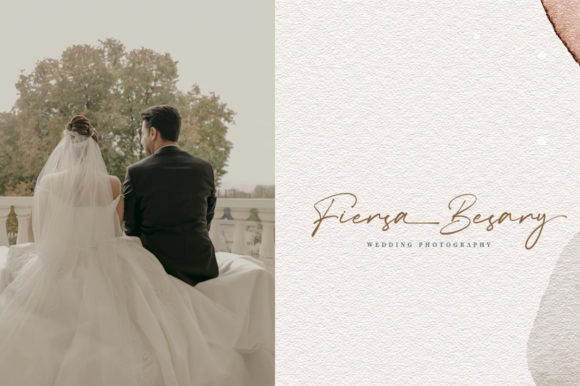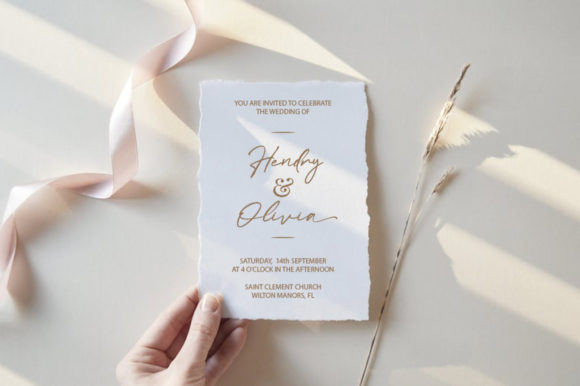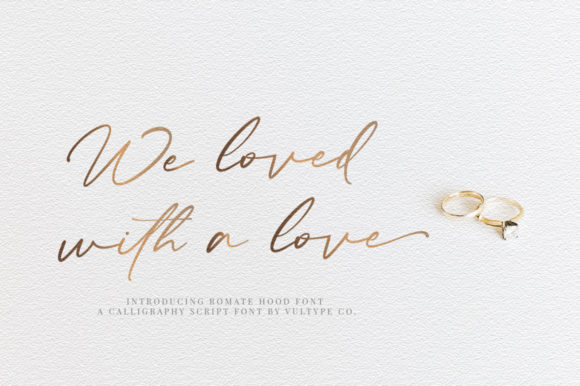
Introduction to Romate Hood Font
Romate Hood feels equally charming and elegant.
This is a beautiful combination of timeless elegance and authentic handwritten calligraphy This font can be used in a wide variety of applications from wedding designs, to logos – the only limit is your imagination.
Key Features of Romate Hood Font
Why Choose Romate Hood Font?
Romate Hood Font offers exceptional quality and versatility, making it a valuable addition to your design toolkit. Whether you’re creating for personal projects or commercial use, Romate Hood Font delivers professional results.